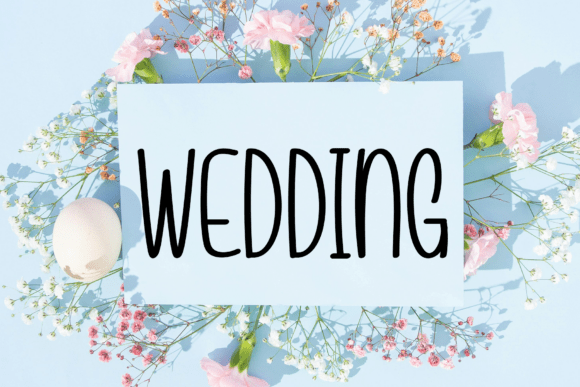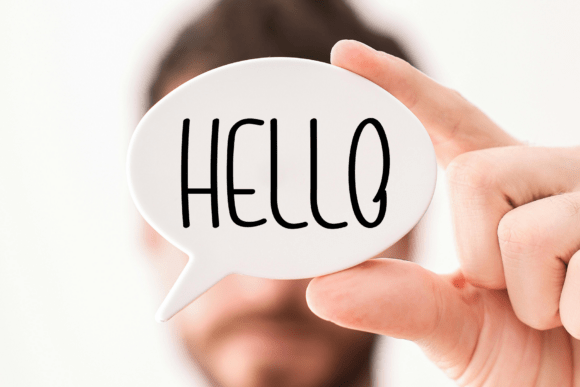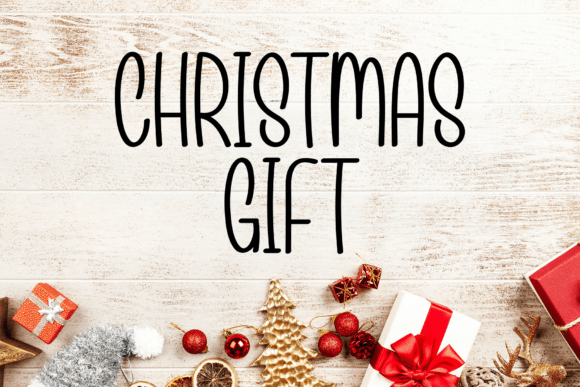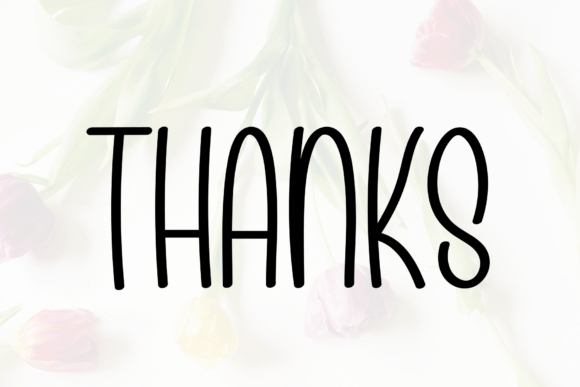
Introduction to Menu Moments Font
Have you ever been in the midst of a creative project, staring at a blank canvas or a blank document, searching for the perfect font to bring your vision to life? It’s a moment we’ve all been there – the moment of truth, when the right typography can make or break the entire design. For designers, finding that elusive ‘wow’ factor can be a daunting task, but what if I told you there’s a font that can elevate your creative endeavors to new heights?
Meet Menu Moments Font, a charming handwritten font that exudes warmth and personality. Its smooth strokes and organic lines create a relaxed atmosphere, perfect for a variety of design projects, from branding and invitations to social media graphics. Whether you’re a seasoned designer or a beginner, Menu Moments Font is a valuable addition to your design resource arsenal.
With its high-quality design and transparent background, this font is a free download waiting to be explored. Its versatility and charm make it an ideal choice for designers looking to add a touch of elegance to their projects. So, what are you waiting for? Dive into the world of Menu Moments Font and discover the magic it can bring to your creative endeavors.
Key Features of Menu Moments Font
- Unique Hand-Drawn Design: Menu Moments Font features a distinctive, hand-drawn style perfect for creative projects requiring a personal touch.
- Transparent Background: This font allows for easy customization with a transparent background, ideal for overlaying on images or using as a design resource.
- High-Quality Typography: Menu Moments Font is designed with high-quality typography in mind, ensuring clear readability in various sizes and resolutions.
- Resolution-Independent: This font is designed to be resolution-independent, ensuring it looks great at various sizes and resolutions, from small web graphics to large print materials.
- Easy Customization: With its unique design and transparent background, Menu Moments Font is an ideal design resource for creative projects requiring easy customization and personalization.
Honest Review: Menu Moments Font
I recently had the chance to work with the Menu Moments Font on a creative project, and I was excited to see how it would turn out. The font is a free download, which is always a bonus when it comes to design resources.
One of the things that works well with Menu Moments Font is its ability to add a touch of elegance to any design. The high-quality typography is clean and sophisticated, making it perfect for restaurant menus, event invitations, and other creative projects.
- ✨ High-quality typography that adds a touch of elegance to any design
- ✨ Transparent background makes it easy to layer over other design elements
However, I did encounter some limitations when working with the Menu Moments Font. The font is only available in a few weights, which can make it difficult to achieve the desired level of contrast in certain designs.
- ⚠️ Limited weight options can make it difficult to achieve desired contrast levels
- ⚠️ May not be suitable for designs that require a lot of customization
Overall, I would recommend the Menu Moments Font for designers who are looking for a high-quality, elegant font that is easy to use. While it may have some limitations, it is definitely a valuable design resource to have in your toolkit.
Menu Moments Font
For a high-quality design, use Menu Moments Font with a transparent background to create a clean and modern look. You can also use it in a creative project, such as a restaurant menu or a product label, to add a touch of elegance and sophistication.